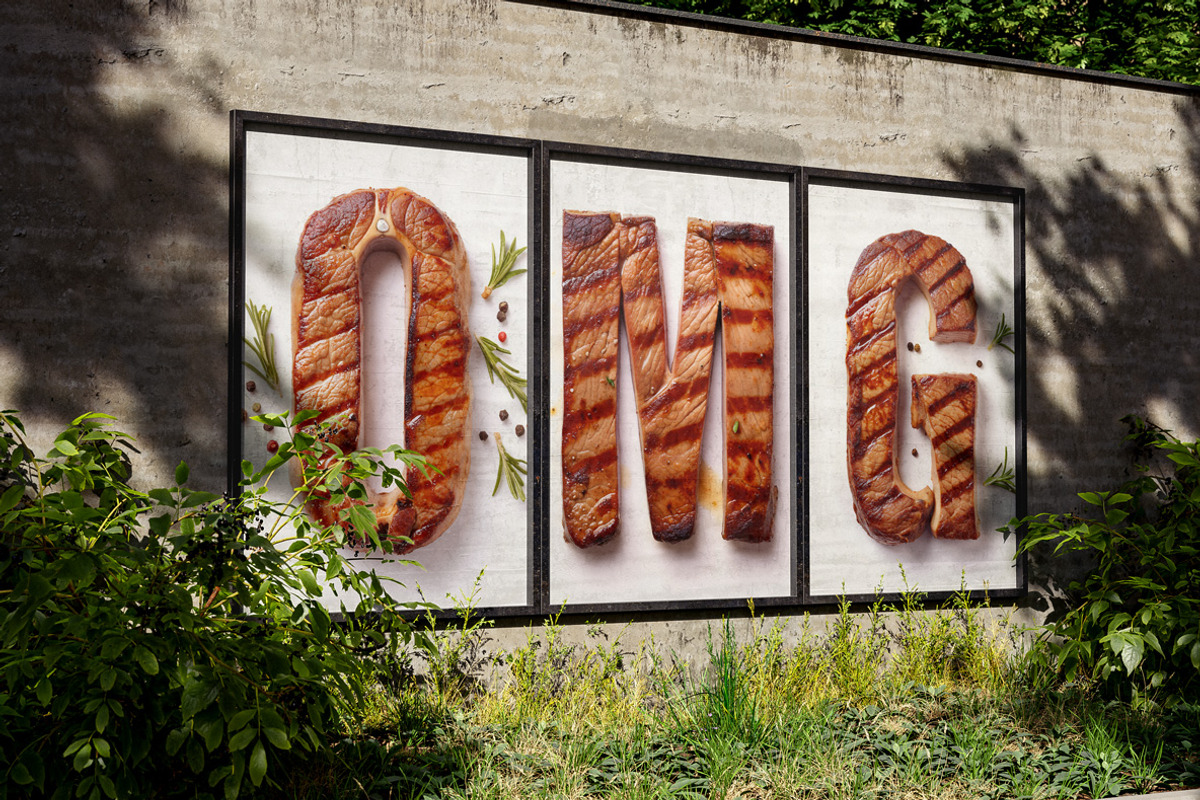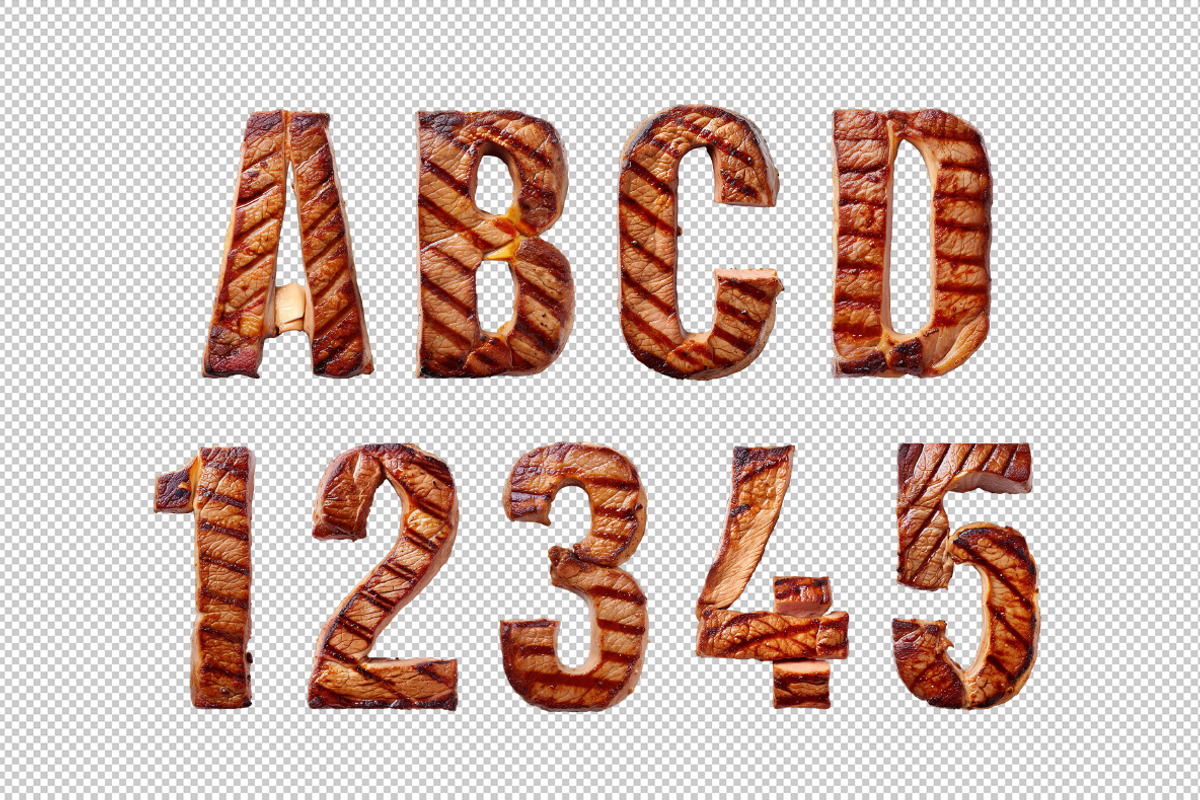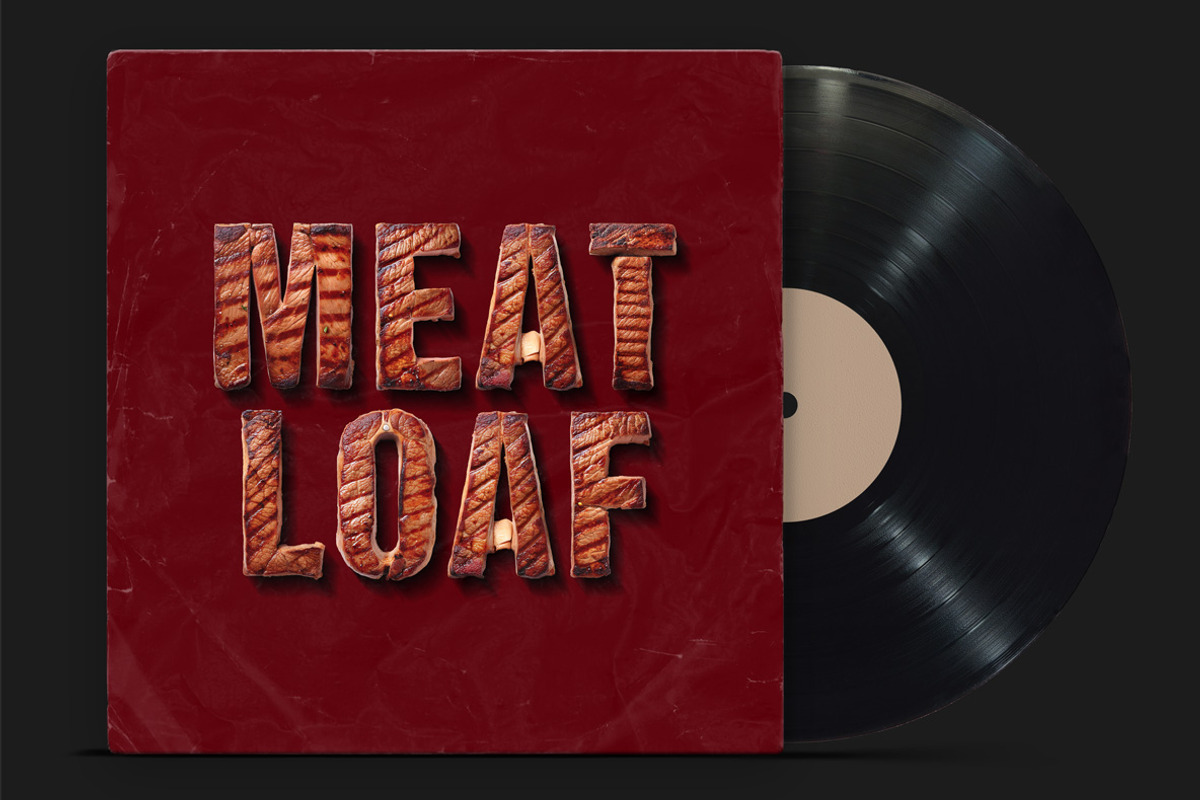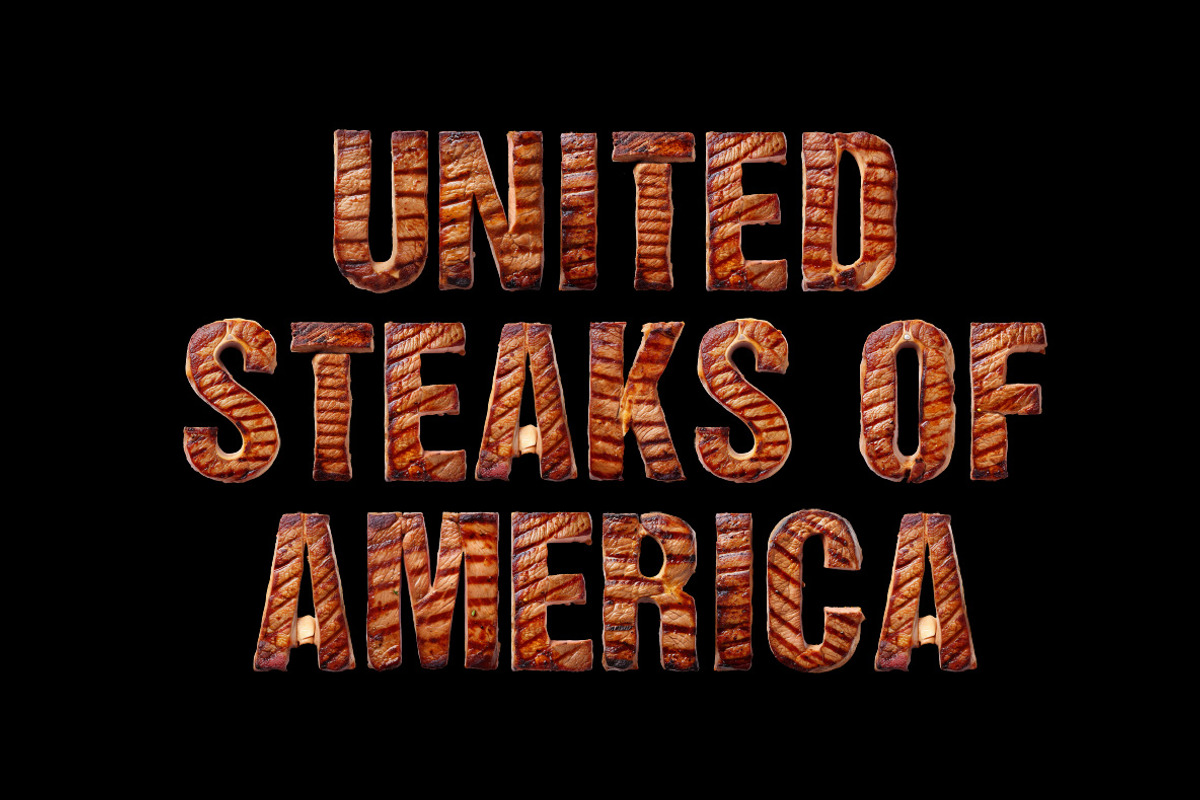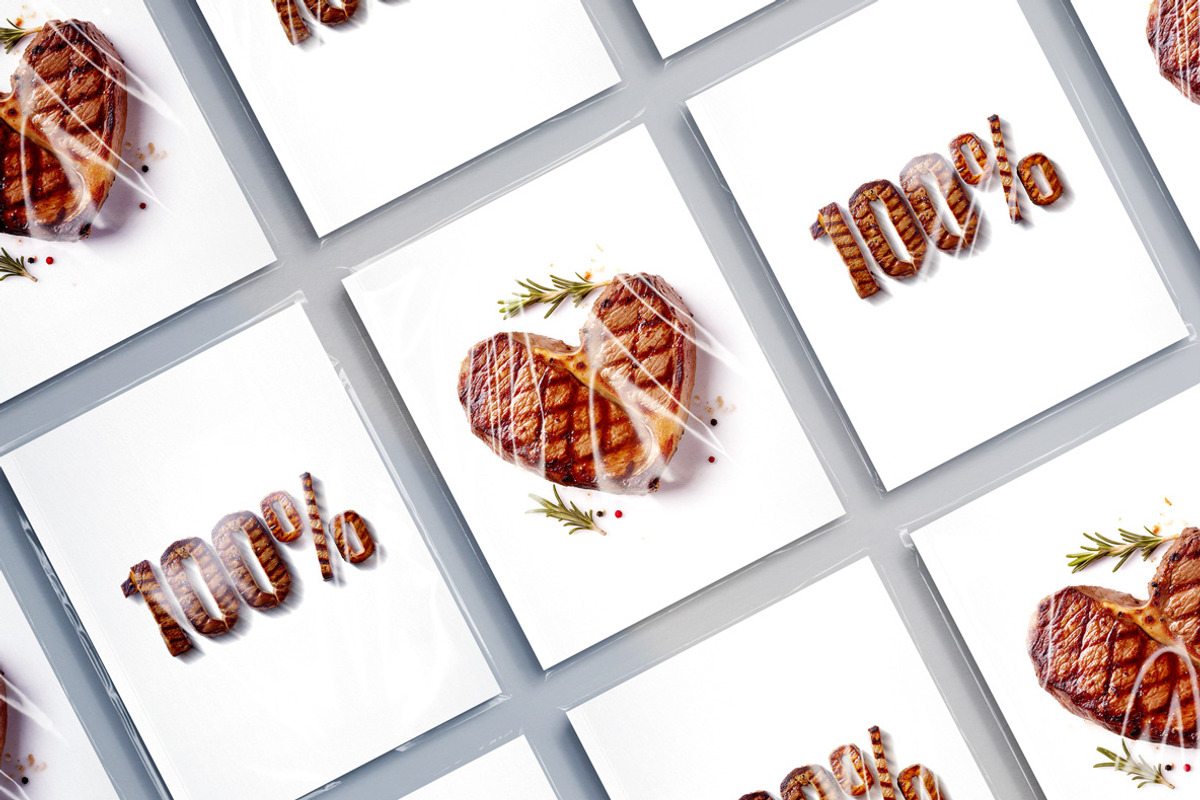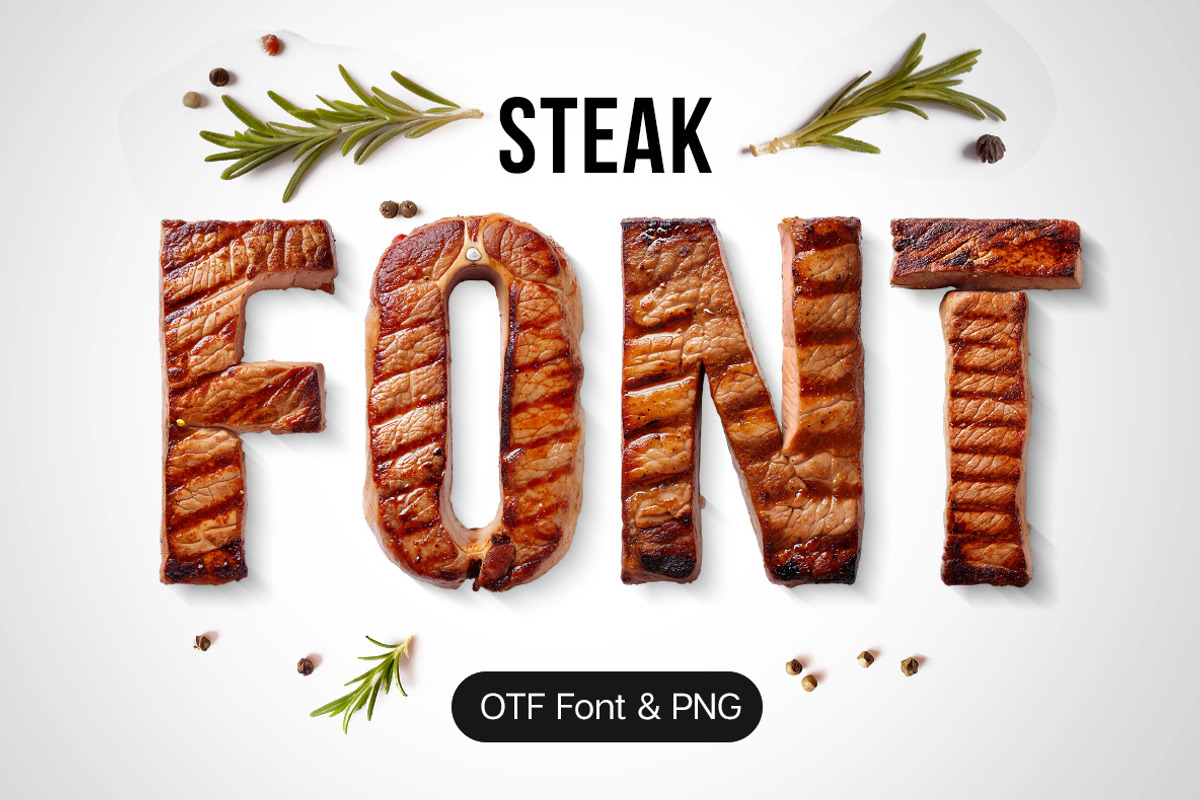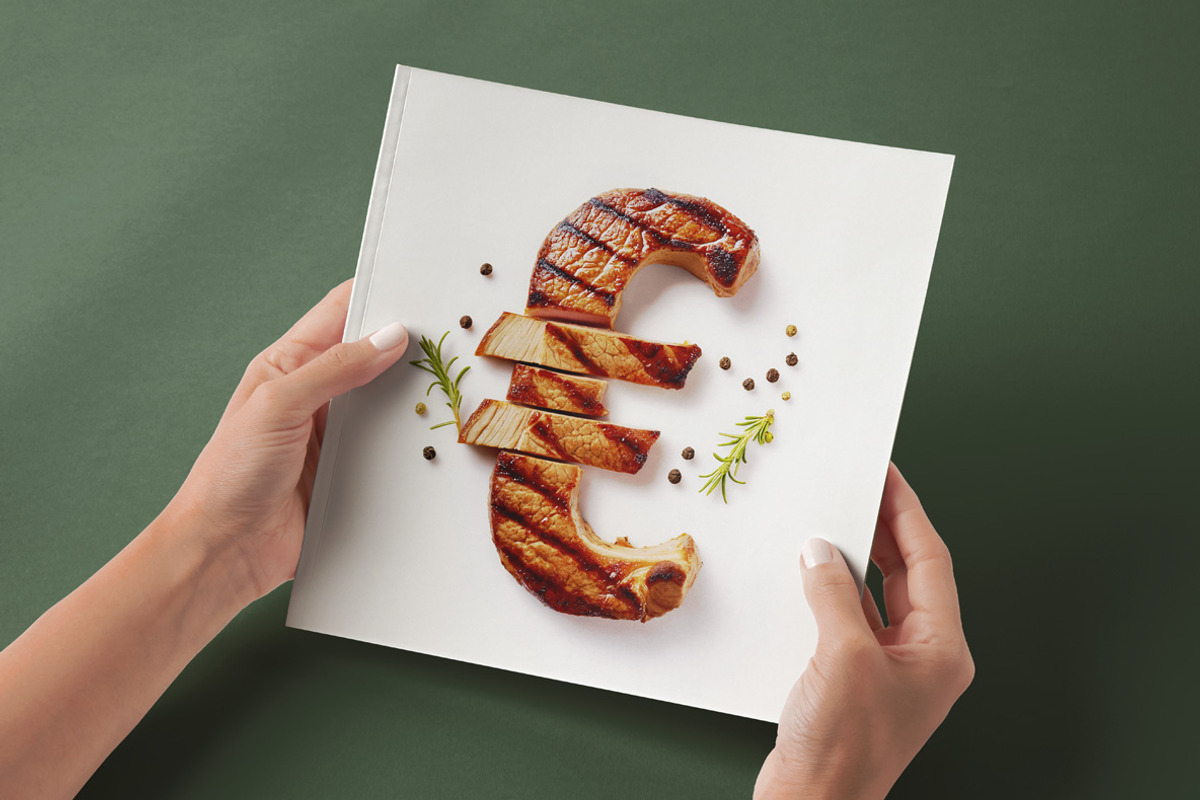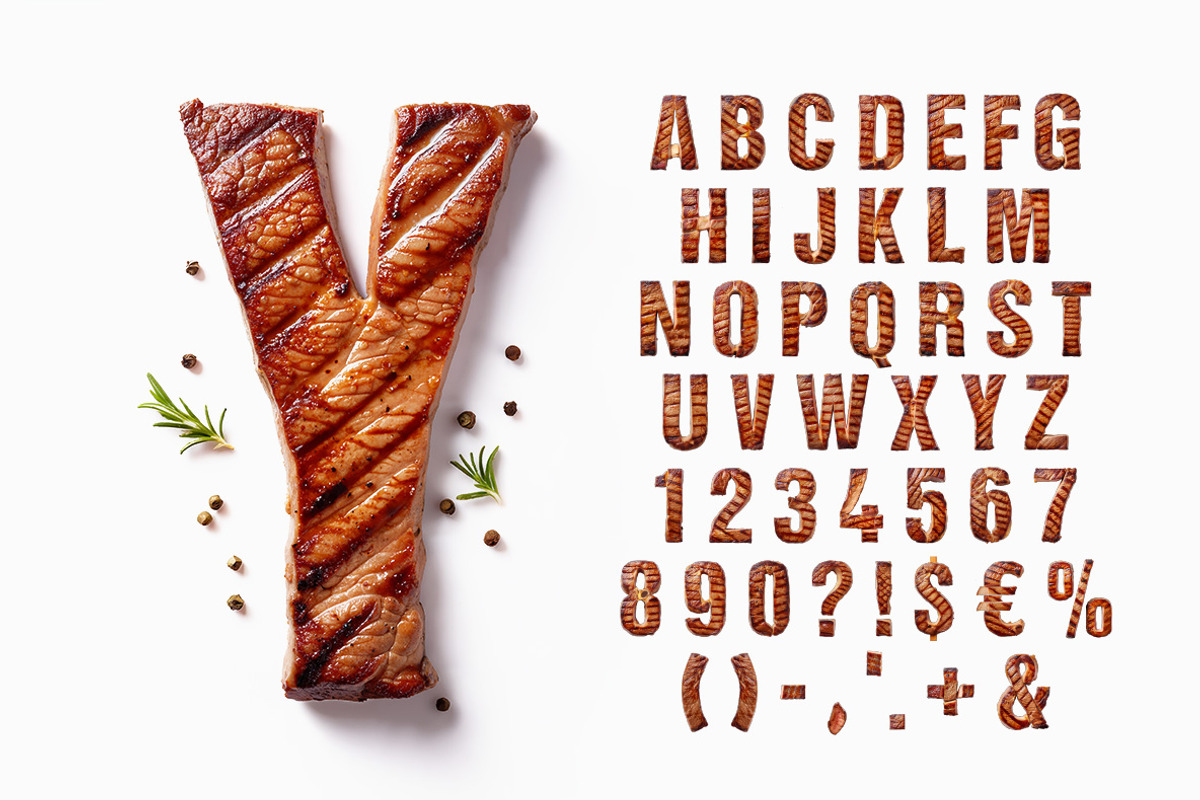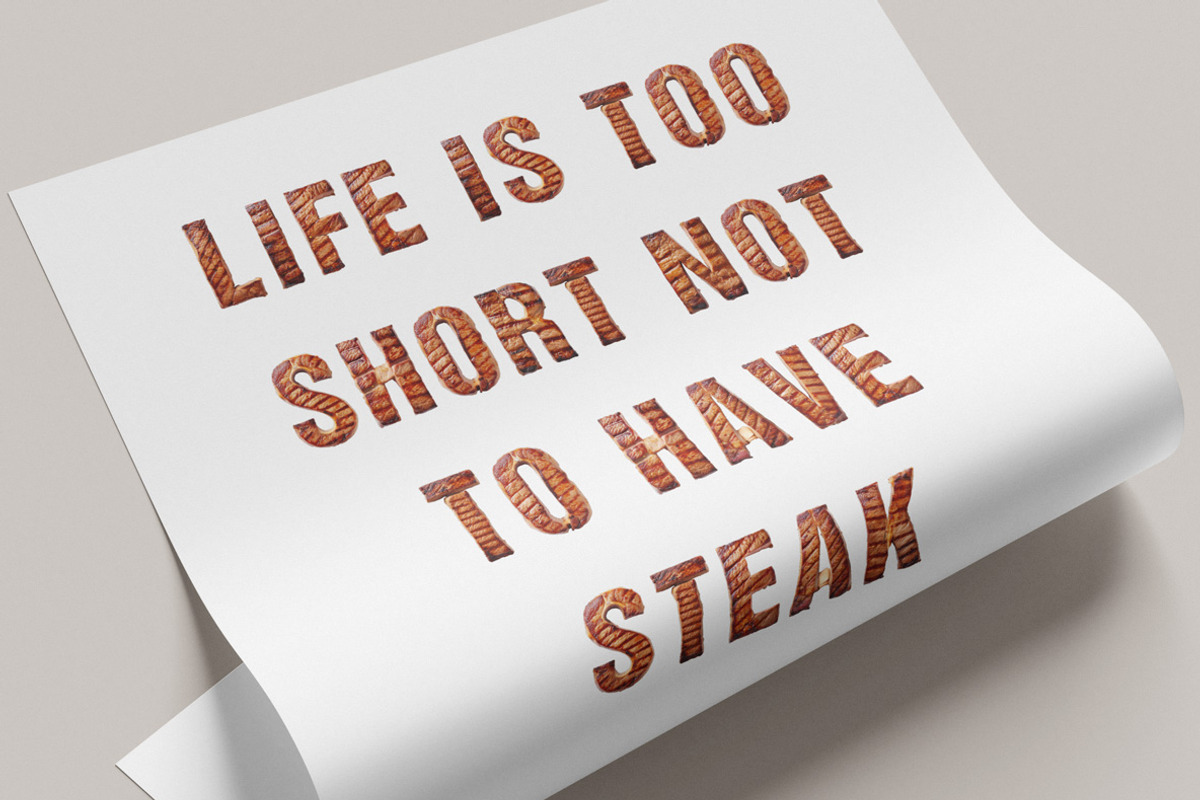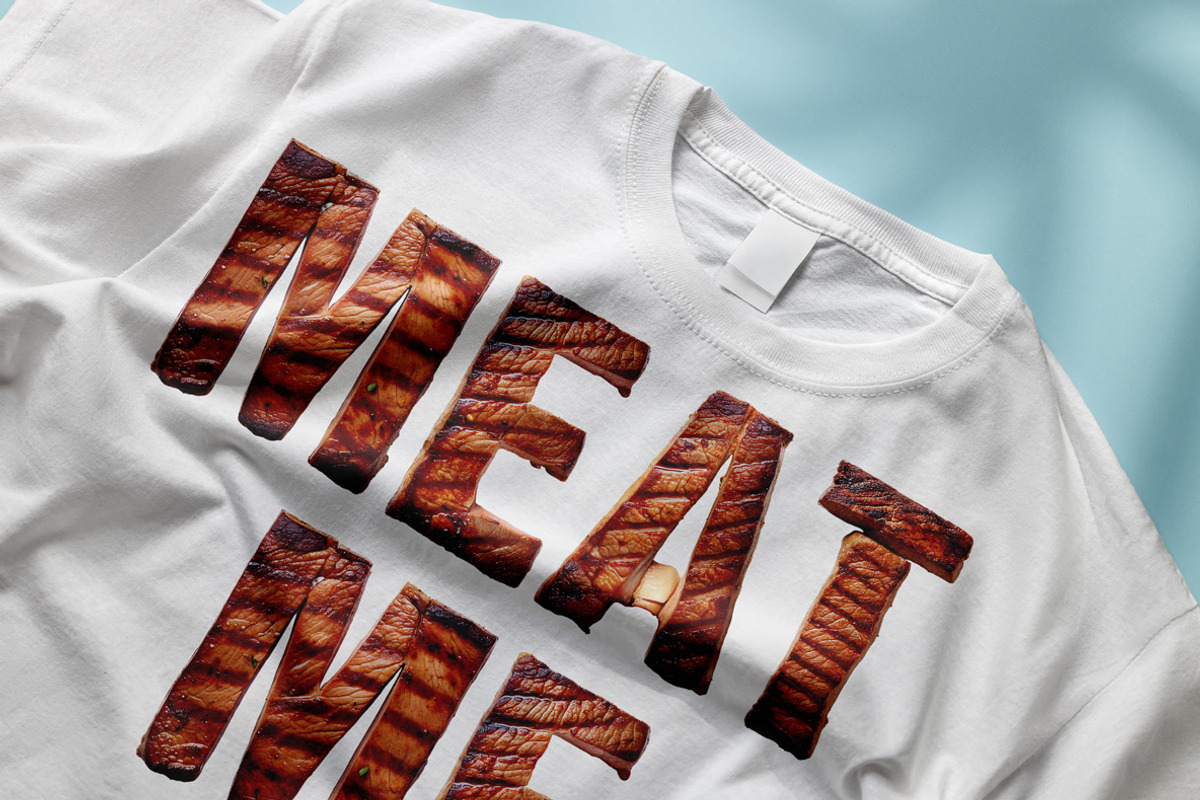
Steak Font
Yeah, grilled. That's the word we're going with here. Because, of course, what else would you call a font made entirely out of steaks? I mean, honestly—steaks as letters. Someone out there was thinking, “You know what typography needs? More meat.” So now we have the Steak Font—where every letter looks like it's been butchered and charbroiled to perfection. It's typography you could serve at a barbecue. And let's not forget, this is high-definition OpenType. So it’s only visible in apps that can handle color bitmap fonts. Because, obviously, if you're going to have an alphabet made of meat, it needs to be technologically sophisticated.
Steak Font. A high definition OpenType Font. Contains uppercase characters, numerals and basic punctuation. (Draw height roughly 800 pixels). All letters and glyphs that comprises this font you can see on the preview.